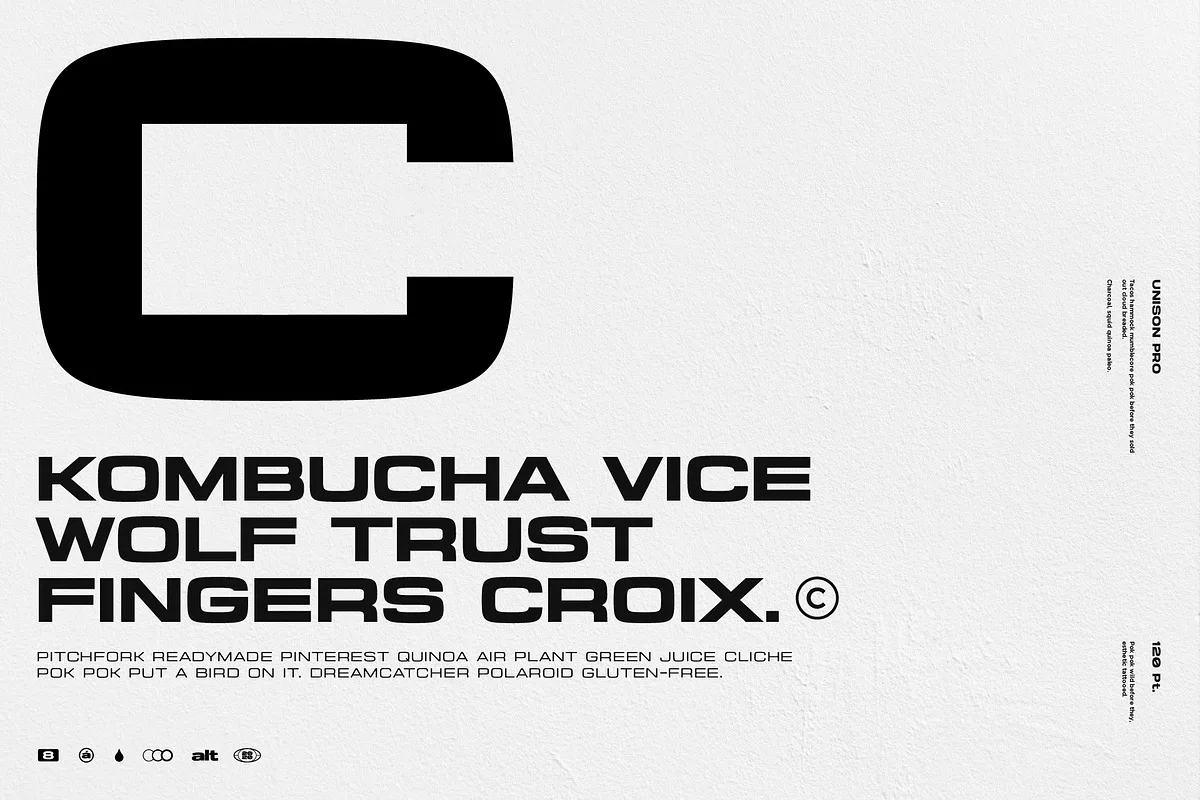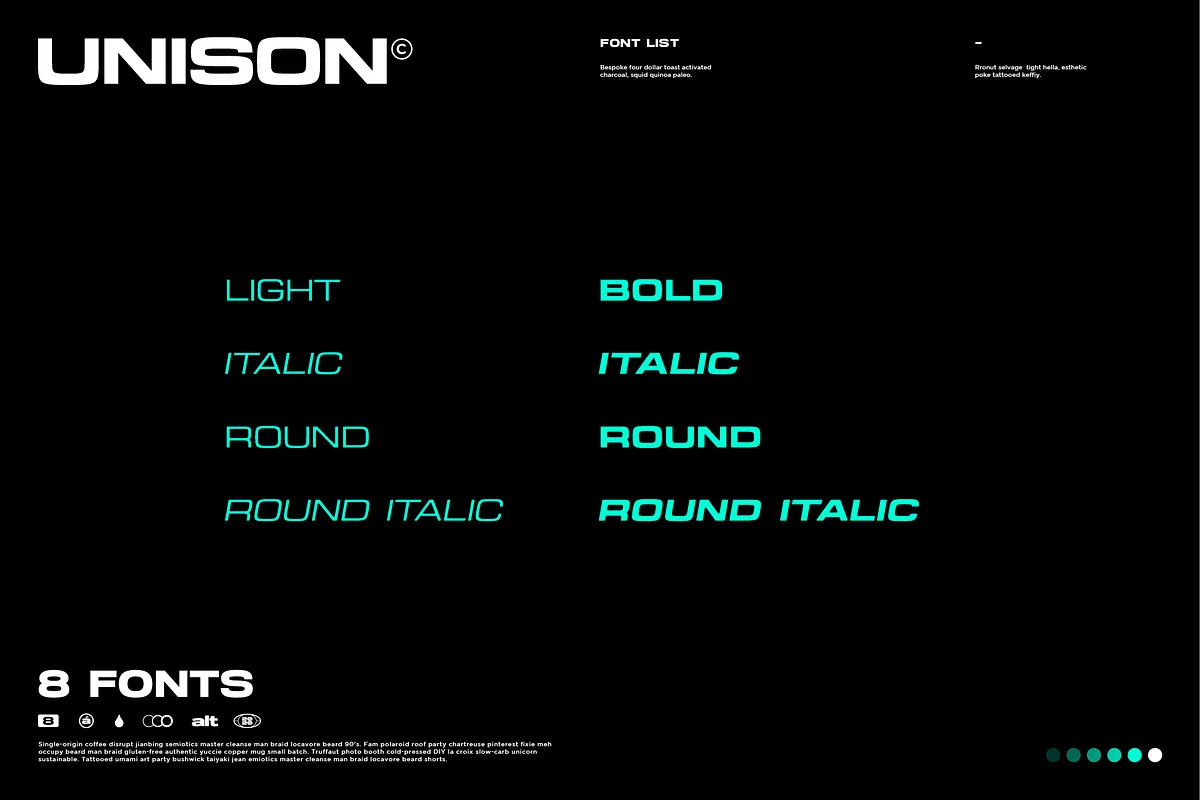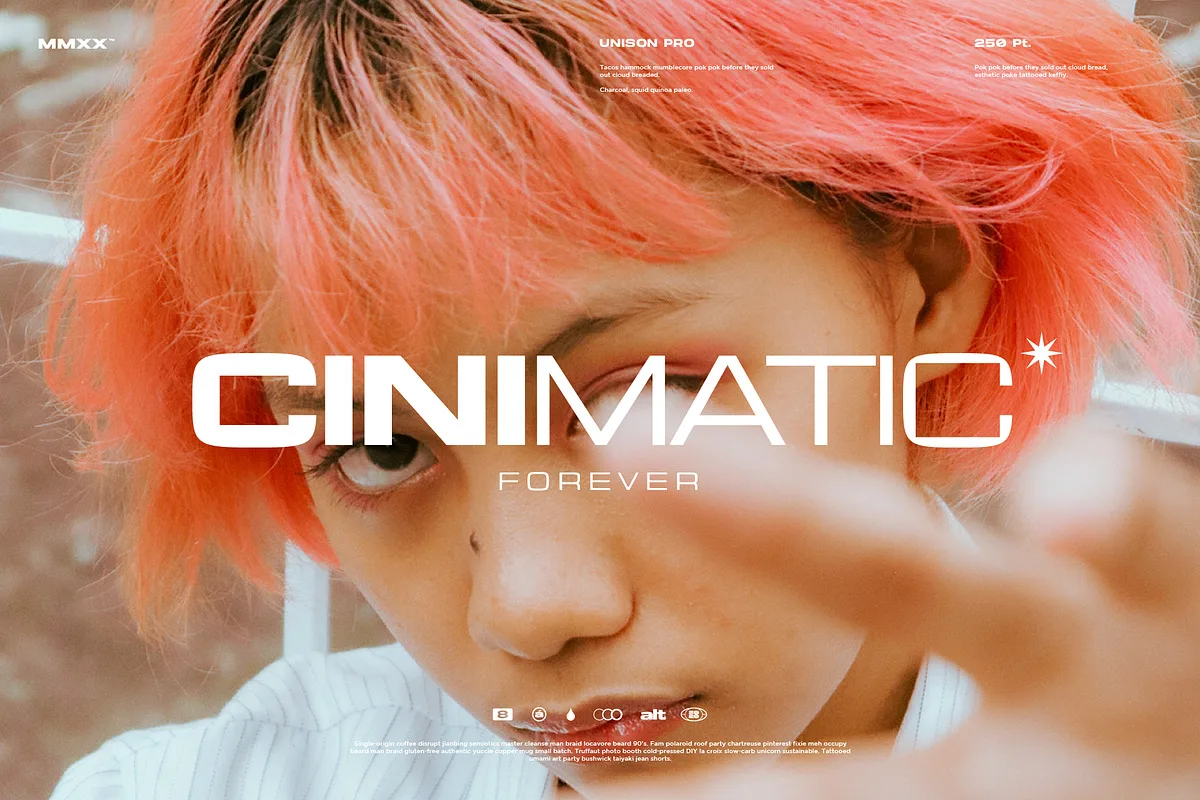
Unison Pro is an extended sans serif typeface. The family includes 8 fonts with stylised caps for each. It is ideal for greeting card, packaging, brand identity, poster, or any purpose to make your design project look eye catching and trendy.
- 8 Fonts Total
- 4 Font Styles
- Stylised Caps
- Multilingual
- Over 1700 Glyphs